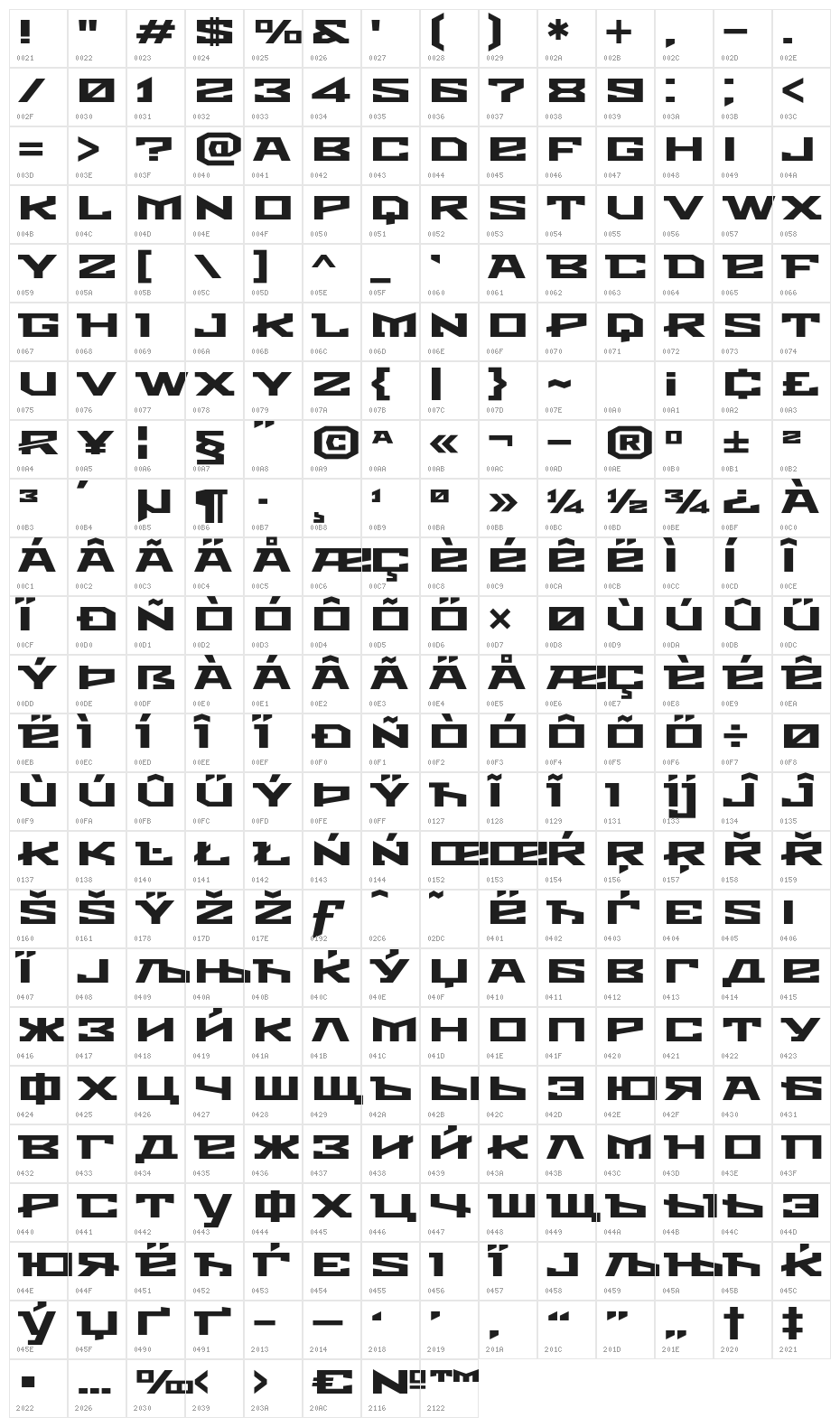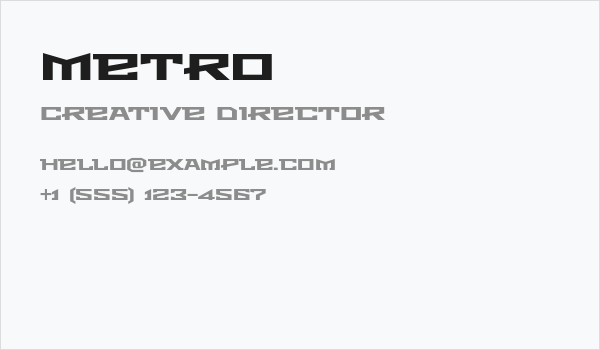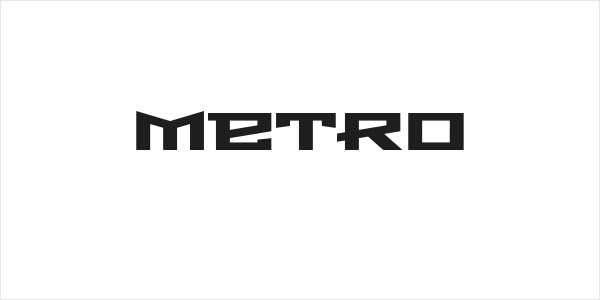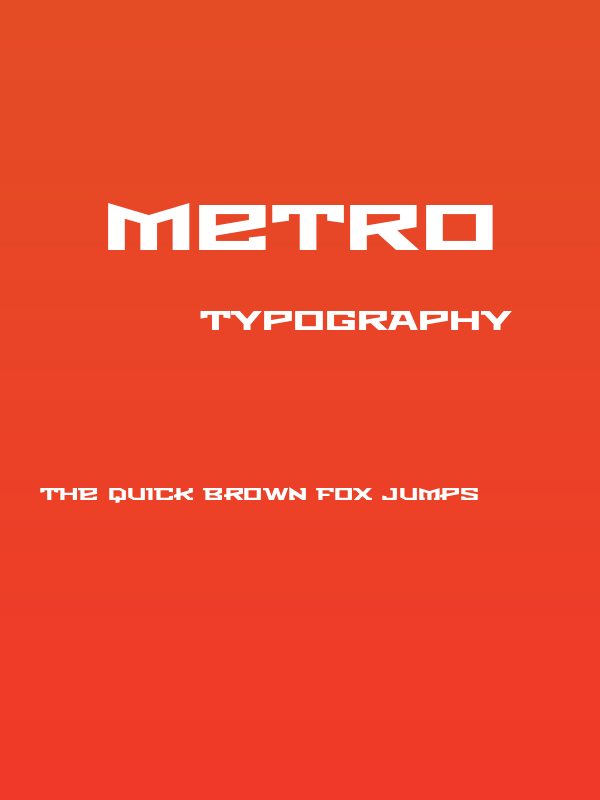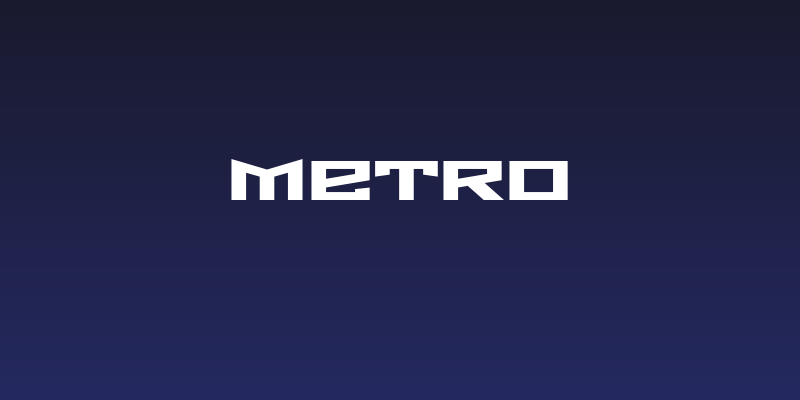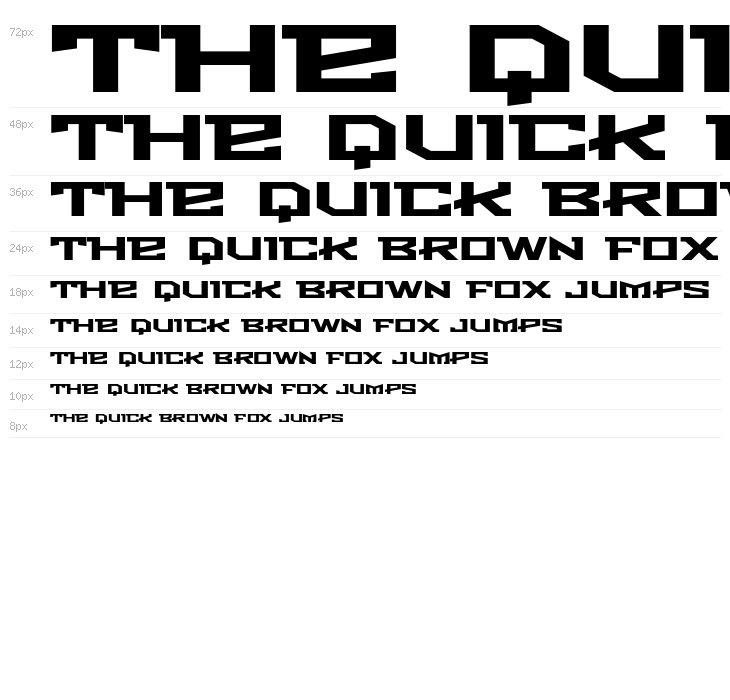
Metro Font
Metro Description
This font features a bold, geometric design with sharp angles and a futuristic aesthetic. The characters are constructed with a consistent stroke width, giving it a uniform appearance. The uppercase letters have a distinct, angular style that is mirrored in the lowercase and numerical characters. Special characters maintain the same bold and angular design, ensuring a cohesive look across all glyphs. The font's unique style makes it stand out, suitable for projects that require a modern and edgy feel.
| Proposed Projects | Ideal for use in sci-fi themed designs, video game titles, tech branding, and modern posters. |